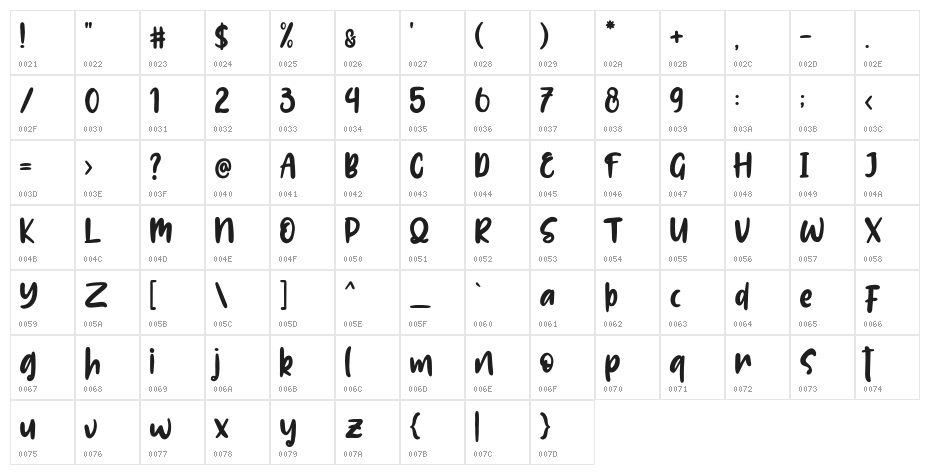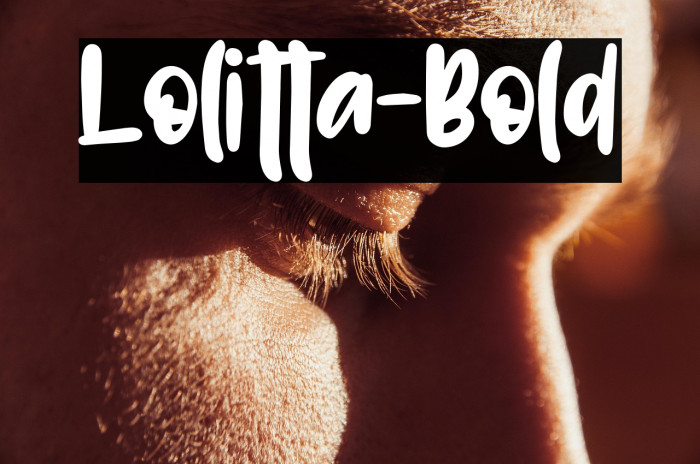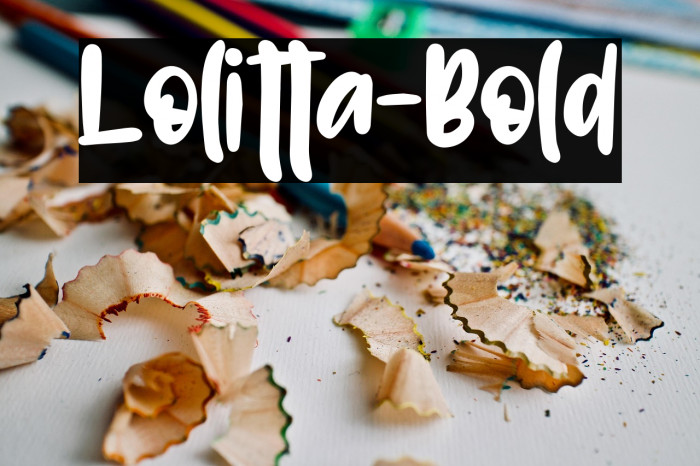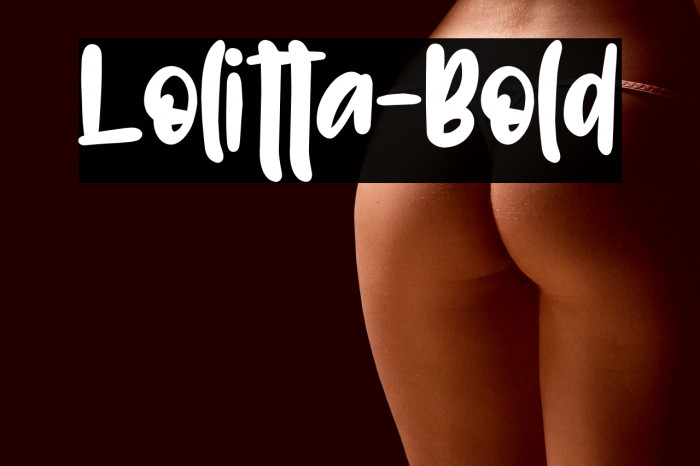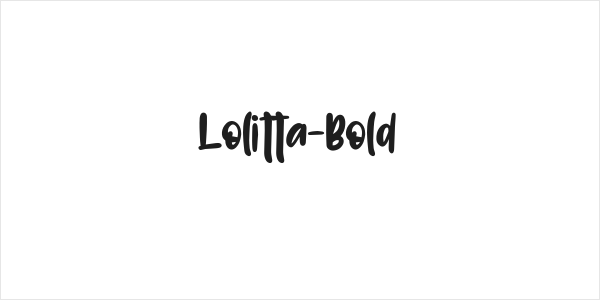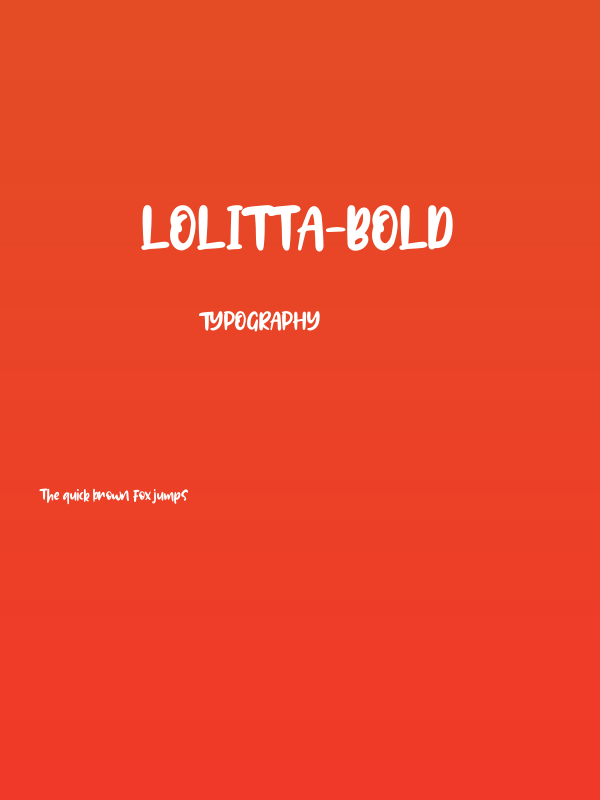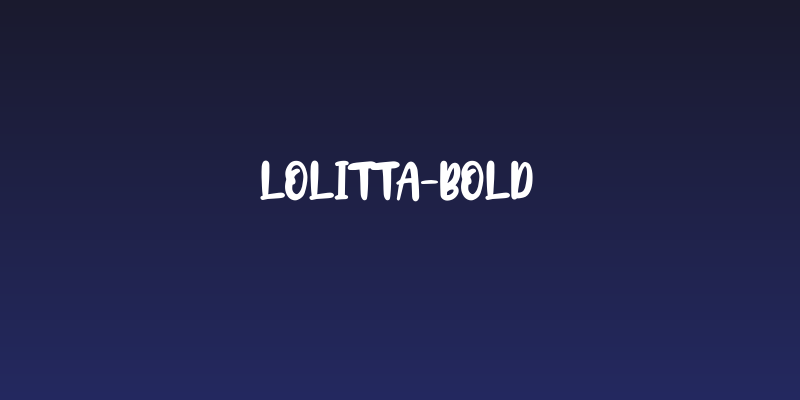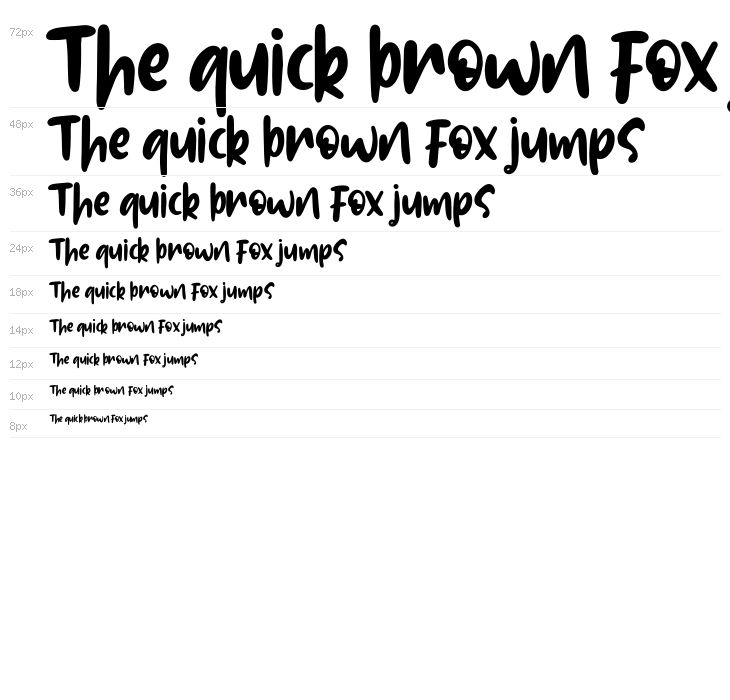
Lolitta-Bold Font
Lolitta-Bold Description
This font features a bold, playful style with a handwritten aesthetic. The characters are rounded and have a casual, friendly appearance, making them suitable for informal and creative projects. The uppercase and lowercase letters maintain a consistent weight, contributing to a cohesive look. Numbers and special characters are designed with the same playful touch, ensuring uniformity across all elements. The strokes are thick and consistent, providing a strong visual impact. This font is ideal for projects that require a personal and approachable feel.
| Proposed Projects | Ideal for greeting cards, children's books, playful branding, and social media graphics. |